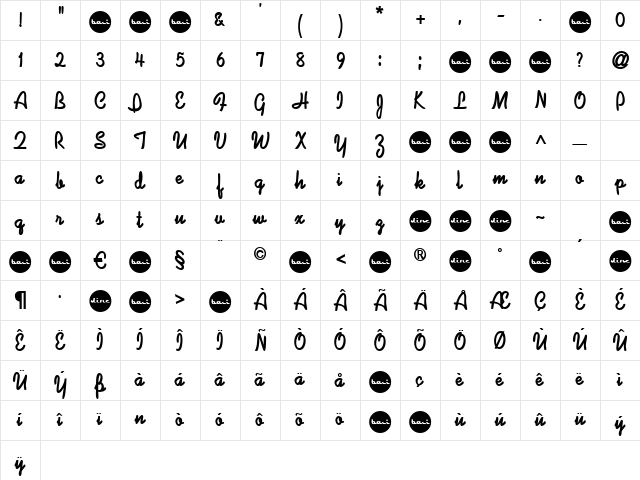
LaDolceVita Regular Free Font
LaDolceVita Regular
Design Context for LaDolceVita
LaDolceVita is a composed and adaptable typeface that performs quietly and consistently across a wide range of design contexts.